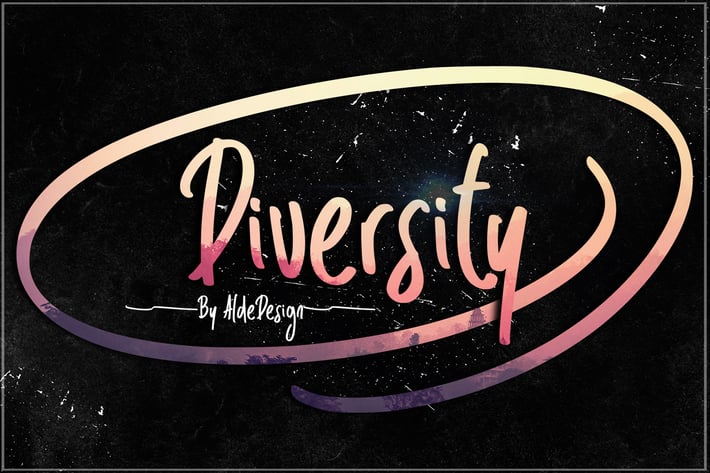
Diversity - Handmade Font
Diversity \\ Playful Handmade
Diversity is a unique handwritten font with a handmade touch. This font is perfect for posters, pamphlets, logos, quotes, posters, playful lettering, clothing, or any other design projects.
Stylish modern handwritten script
Special Ligatures